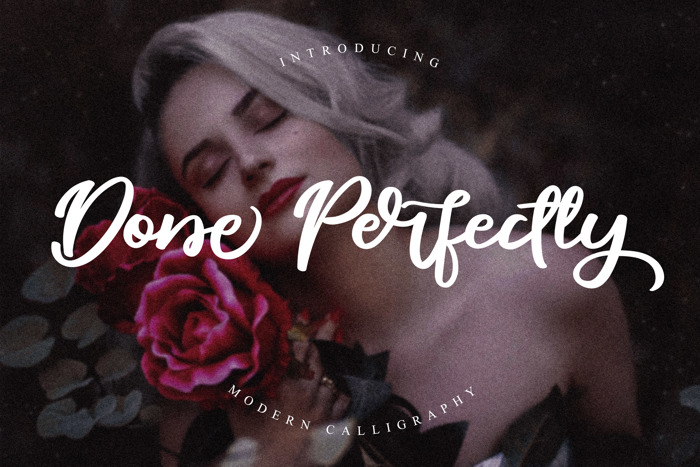
Done Perfectly Font
Presenting Done Perfectly, It is a modern script with handwritten style with a personal charm and it’s looks stylish and elegant. This font has many alternate and ligature, very useful for those who want a lot of font variations
Done Perfectly is perfect for branding projects, wedding designs, social media posts, advertisements, product packaging, product designs, label, photography, watermark, invitation, stationery and any projects that need handwriting taste.
- Ton of glyphs (include Uppercase, Lowercase, Numerals & Punctuations, Ligature)
- Fonts include multilingual support for; Afrikaans, Albanian, Catalan, Danish, Dutch, English,
French, Hungarian, Icelandic, Italian, Spanish, Portuguese, German, Swedish, Norweigen,
Polish, Indonesian, Turkish, Zulu ( Buy Full Version )